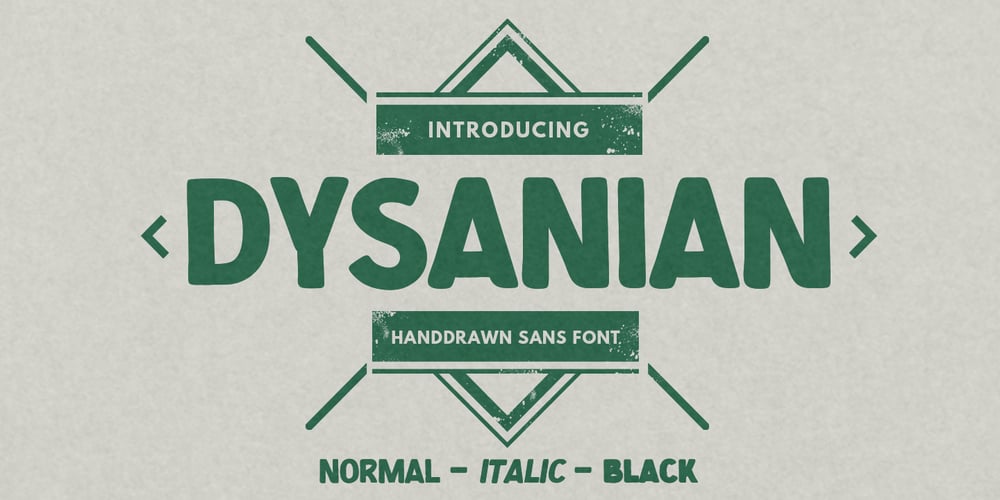
Dysanian
Dysanian font
Dysanian Font Family was designed by Abdul Malik Wisnu, Anang Fibriyanto and published by Gassstype. Dysanian contains 1 styles and family package options. Dysanian is Hand Drawn Sans Font with a natural style and dramatic movement.is a Authentic Font that is written casually and quickly. Dysanian is has 4 style Normal,Italic,Black and Black Italic styles is perfect for the purposes of designing templates, brochures, videos, advertising branding, logos and more.